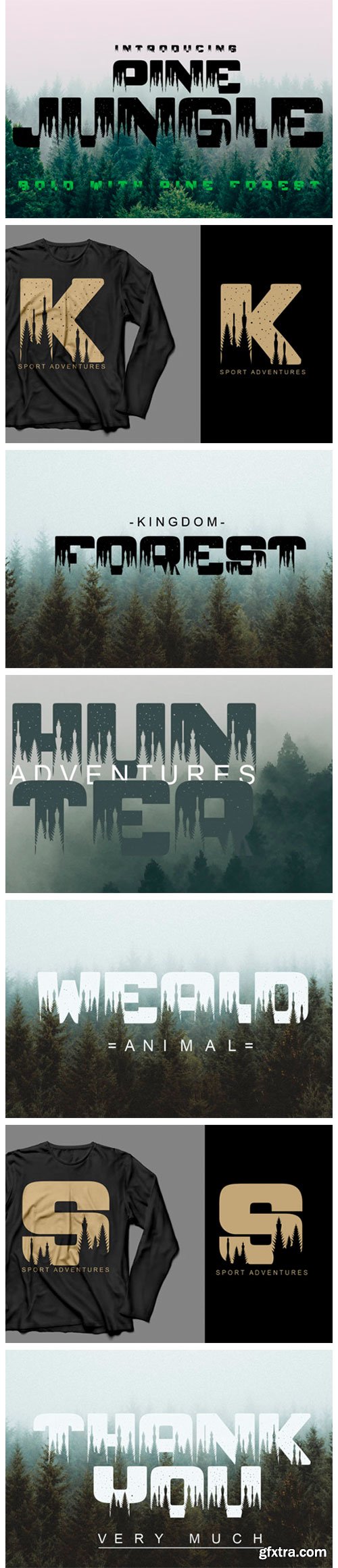
Pine Jungle Font
Pine Jungle is a strong display font. It features cute forest-themed characters. Get creative with its original look and create amazing greeting cards, eye-catching logos and much more!